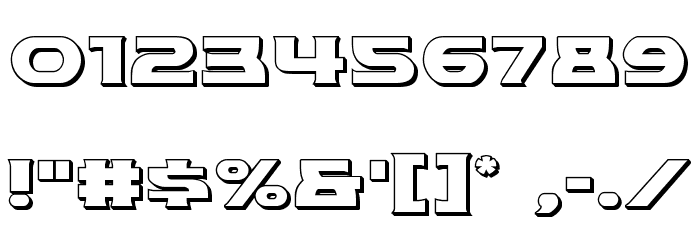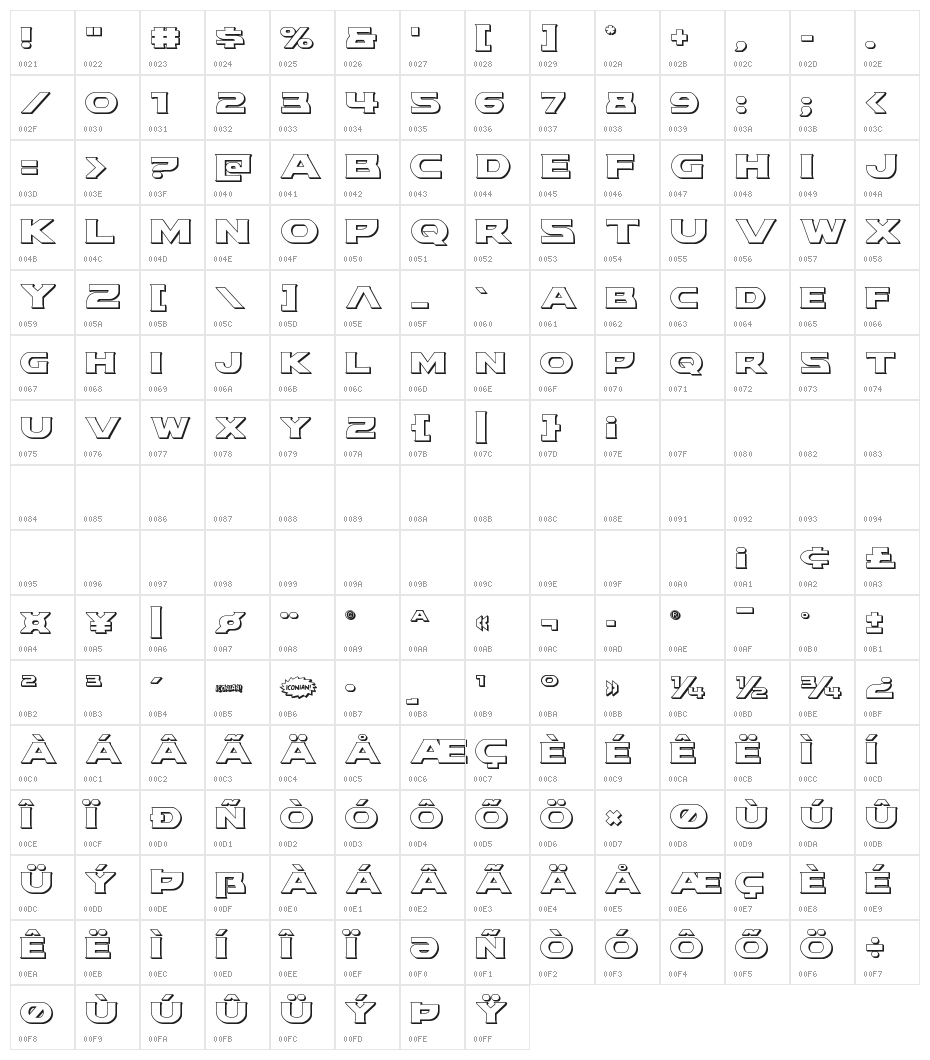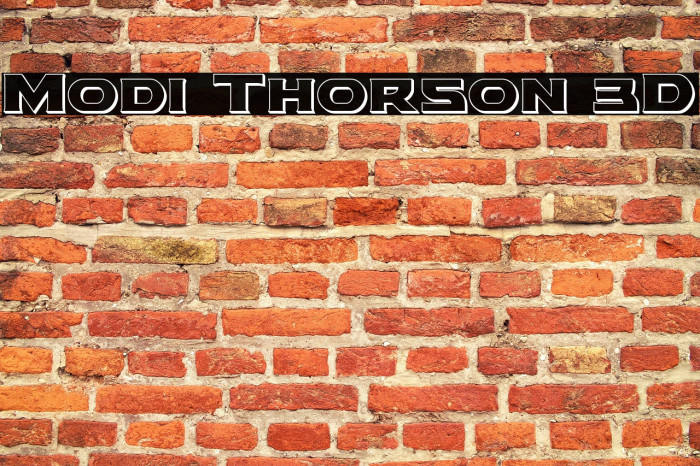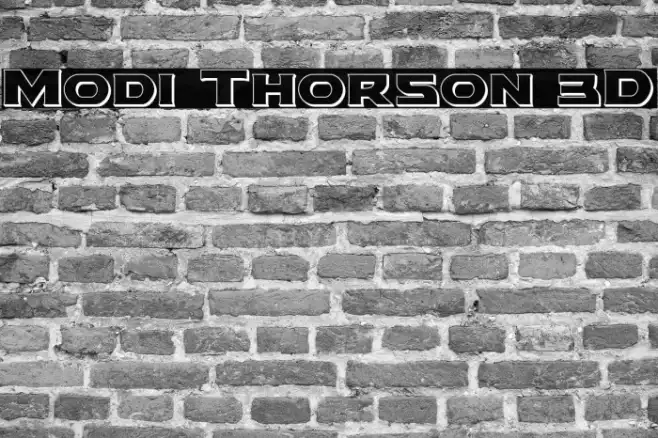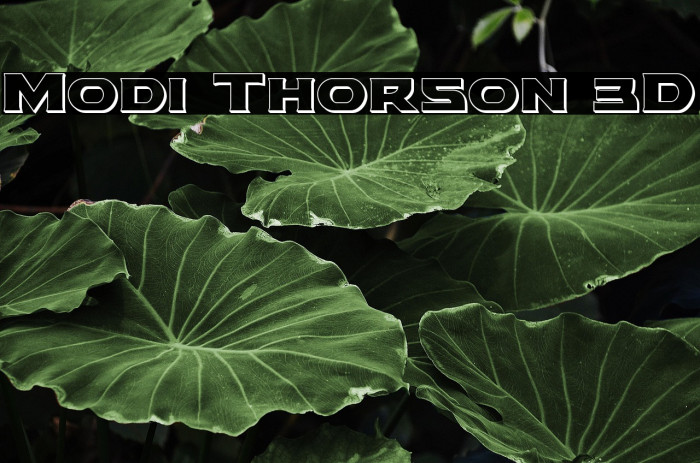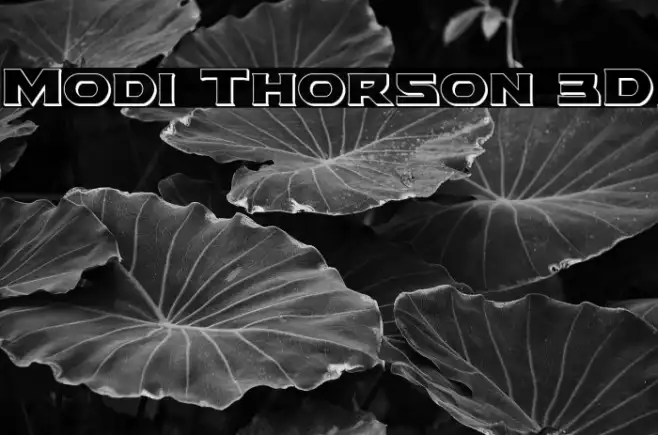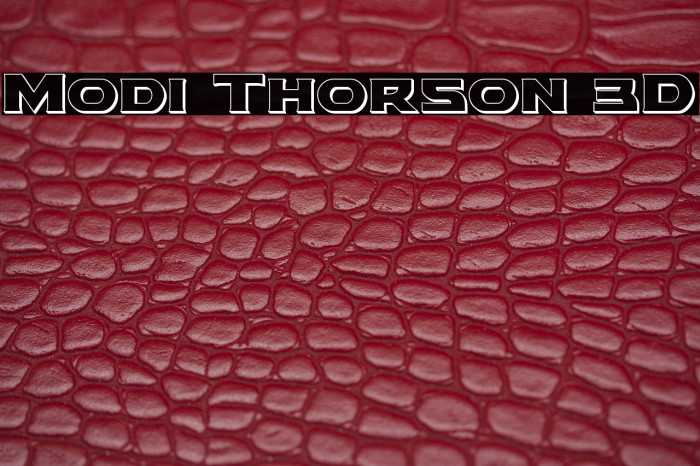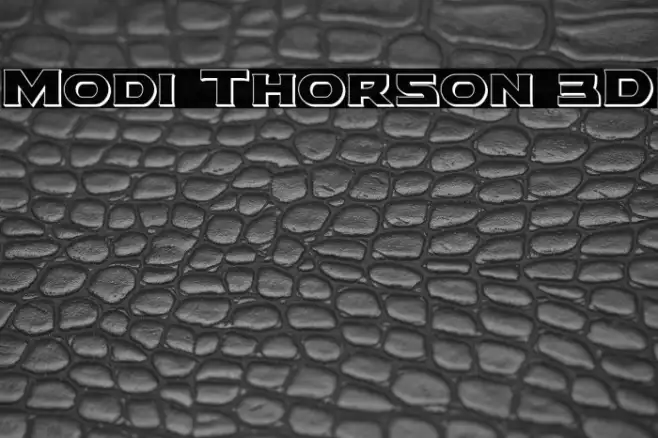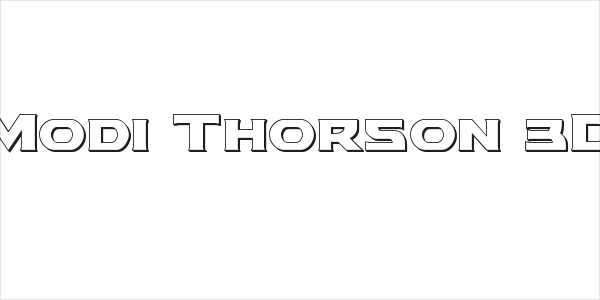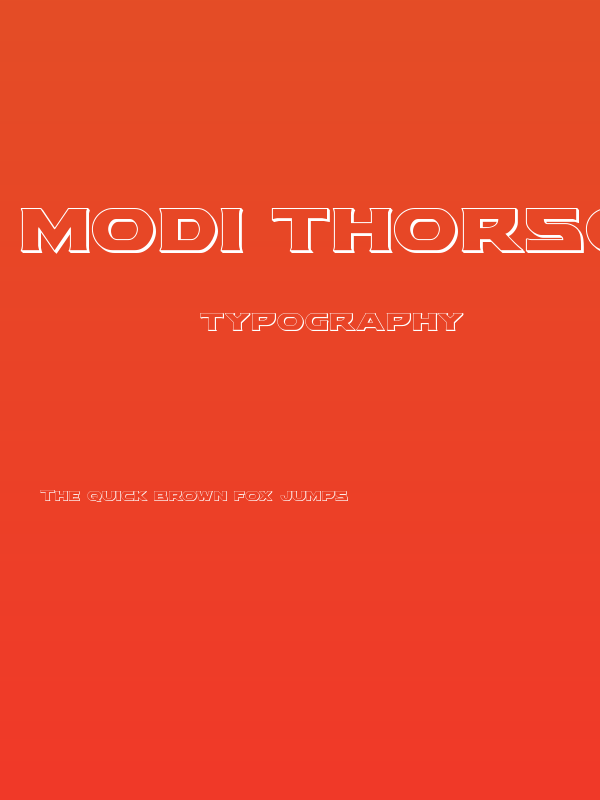
Modi Thorson 3D Font
Modi Thorson 3D Description
This font features a bold, three-dimensional appearance with a strong, geometric structure. The characters are outlined, giving them a hollow look that enhances the 3D effect. The uppercase letters are uniform in height, with sharp angles and clean lines that create a modern and futuristic feel. The numerals and special characters maintain the same stylistic approach, ensuring consistency across all glyphs. The font's design is ideal for making a statement, with its eye-catching and dynamic presence.
Proposed ProjectsIdeal for headlines, posters, video game graphics, and branding projects that require a strong visual impact.